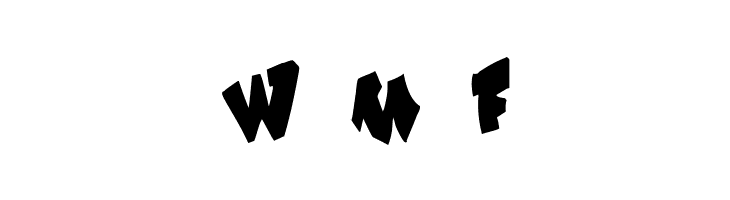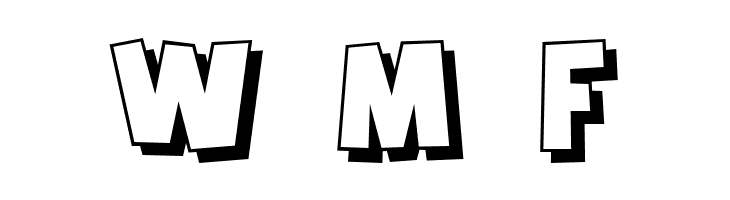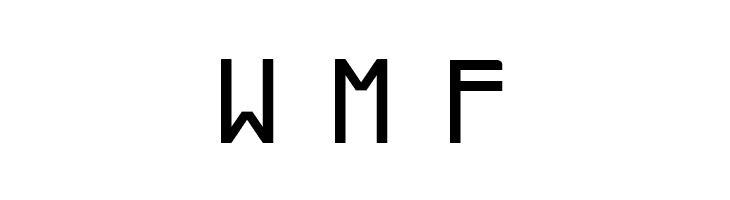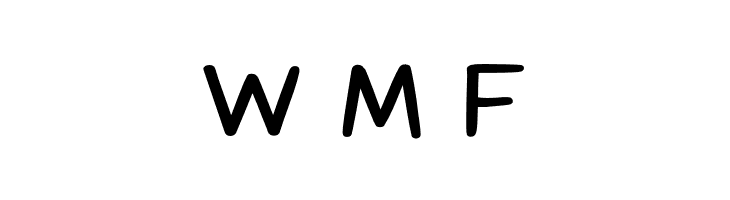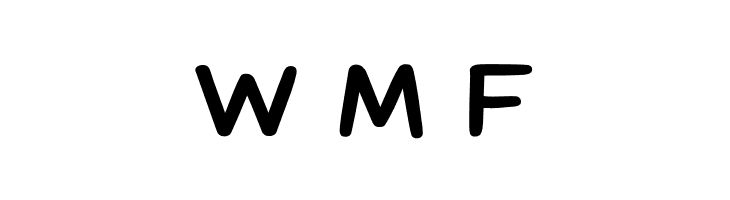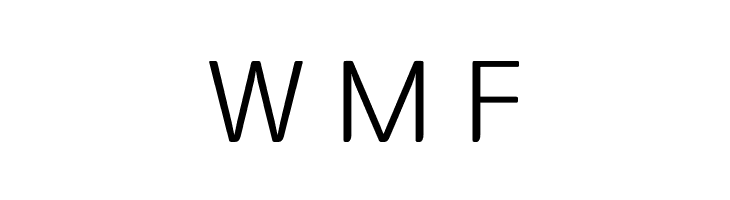
A bold, playful font with a graffiti-like, urban style.
A bold, playful font with a 3D shadow effect, perfect for eye-catching designs.
A geometric, modern font with consistent stroke width and angular design.
A bold, geometric font with dynamic and stylized characters.
A playful, hand-drawn font with rounded, consistent strokes.
A bold, rounded font with a playful and approachable style.
A playful, bold, and rounded font with smooth letterforms.
A playful, handwritten-style font with rounded edges and consistent stroke thickness.
Casual handwritten font with brush-like strokes.
Geometric sans-serif with rounded terminals and uniform strokes.